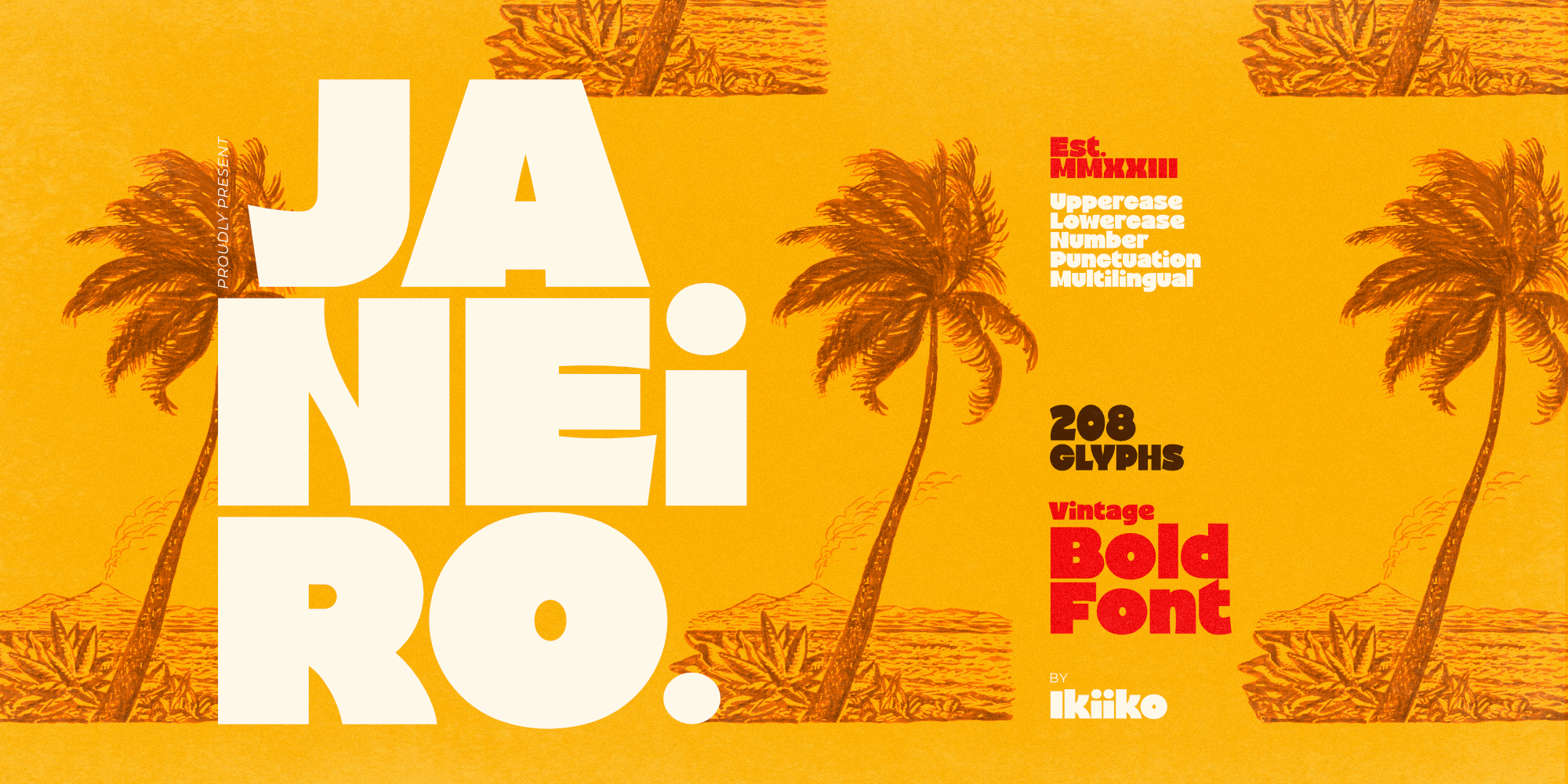
Janeiro Font excels in diverse design applications including vacation resort branding, tropical restaurant menus, summer festival posters, beachside café signage, travel agency materials, cocktail bar graphics, tourism websites, beach wedding invitations, tropical product packaging, and sunny lifestyle brand campaigns. This vibrant typeface captures the essence of endless summer vibes.
What makes Janeiro Font truly exciting is its perfect fusion of relaxed elegance and playful energy. The font features smooth, flowing letterforms with subtle tropical-inspired curves that evoke feelings of warmth, relaxation, and adventure. Its cheerful personality and sunny disposition make it ideal for brands wanting to convey joy, freedom, and the carefree spirit of tropical destinations.
The Janeiro Font family encompasses various weights and styles including Regular, Bold, Light, Italic, and potentially Script variations. These comprehensive options allow designers to create cohesive branding systems that maintain the font's distinctive tropical character while providing flexibility for different design needs and applications.
Whether you're developing vacation branding, creating summer campaigns, or designing lifestyle products, Janeiro Font Free Download provides the authentic tropical feel and visual warmth that contemporary projects demand. Its exceptional charm and sunny personality make it an essential tool for designers seeking to create memorable, feel-good designs that transport audiences to paradise.